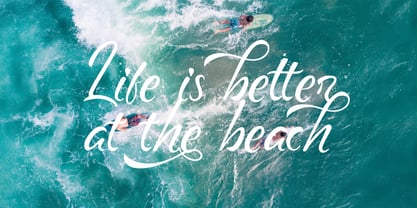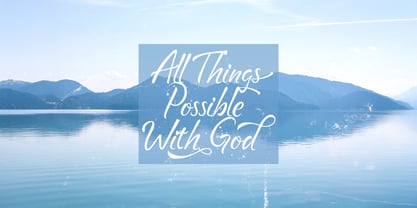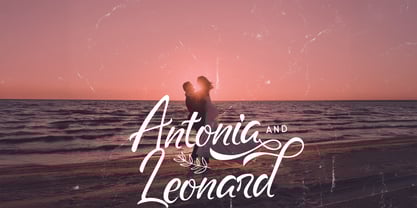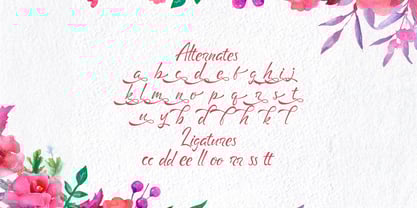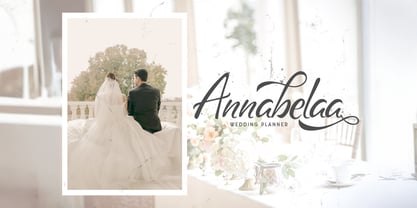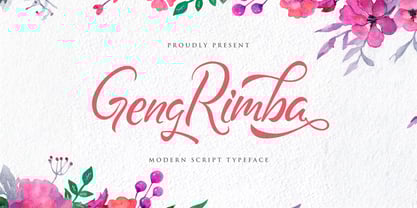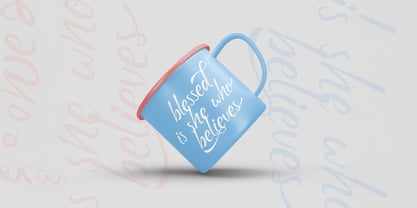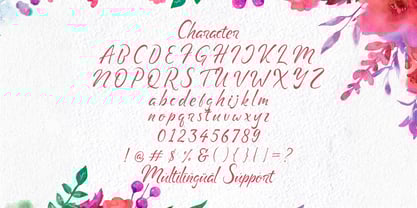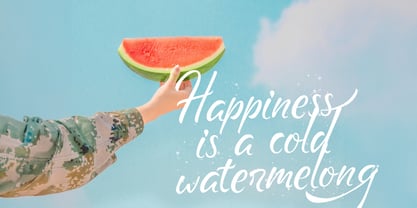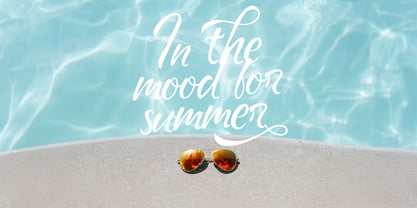
The Geng Rimba Font Family was designed by Virgiawan Listanto and published by Stringlabs Creative Studio. Geng Rimba contains 1 styles. More about this family
Geng Rimba is a delicate, elegant and flowing handwritten font. It has beautiful and well balanced characters and as a result, it matches a wide pool of designs. Add it to your most creative ideas and notice how it makes them come alive!